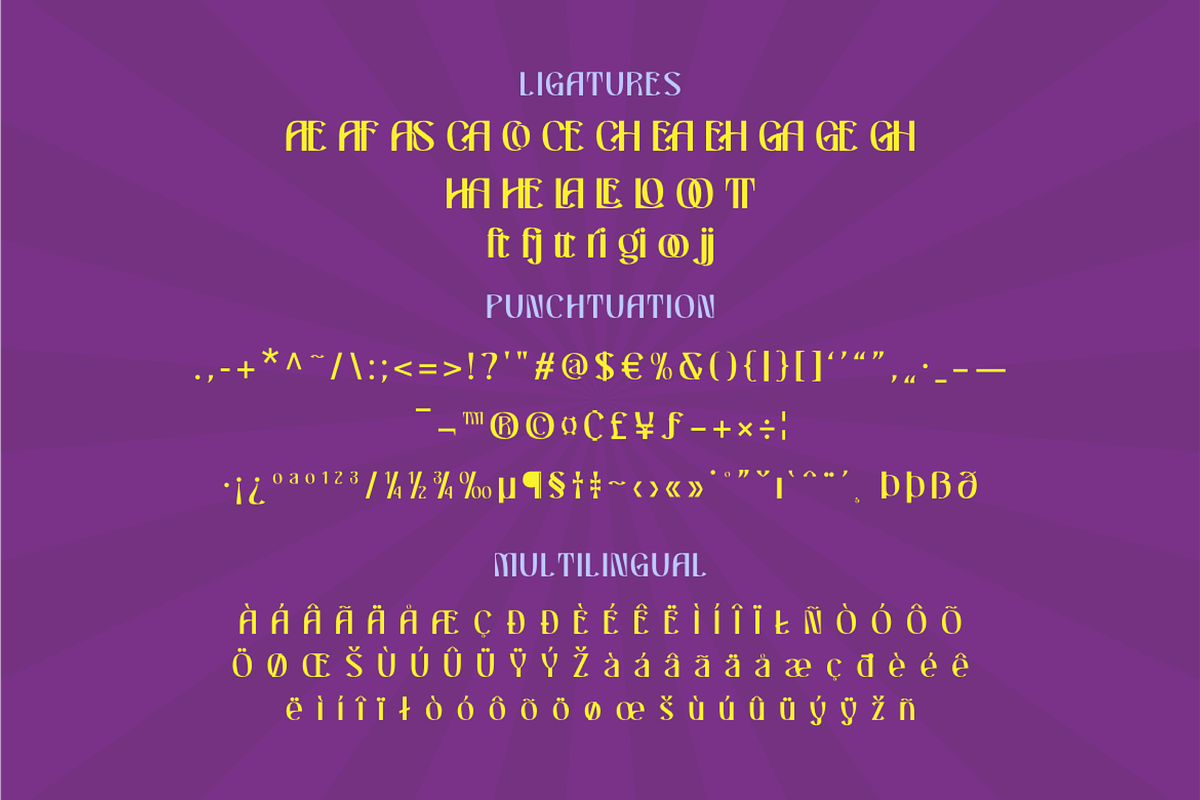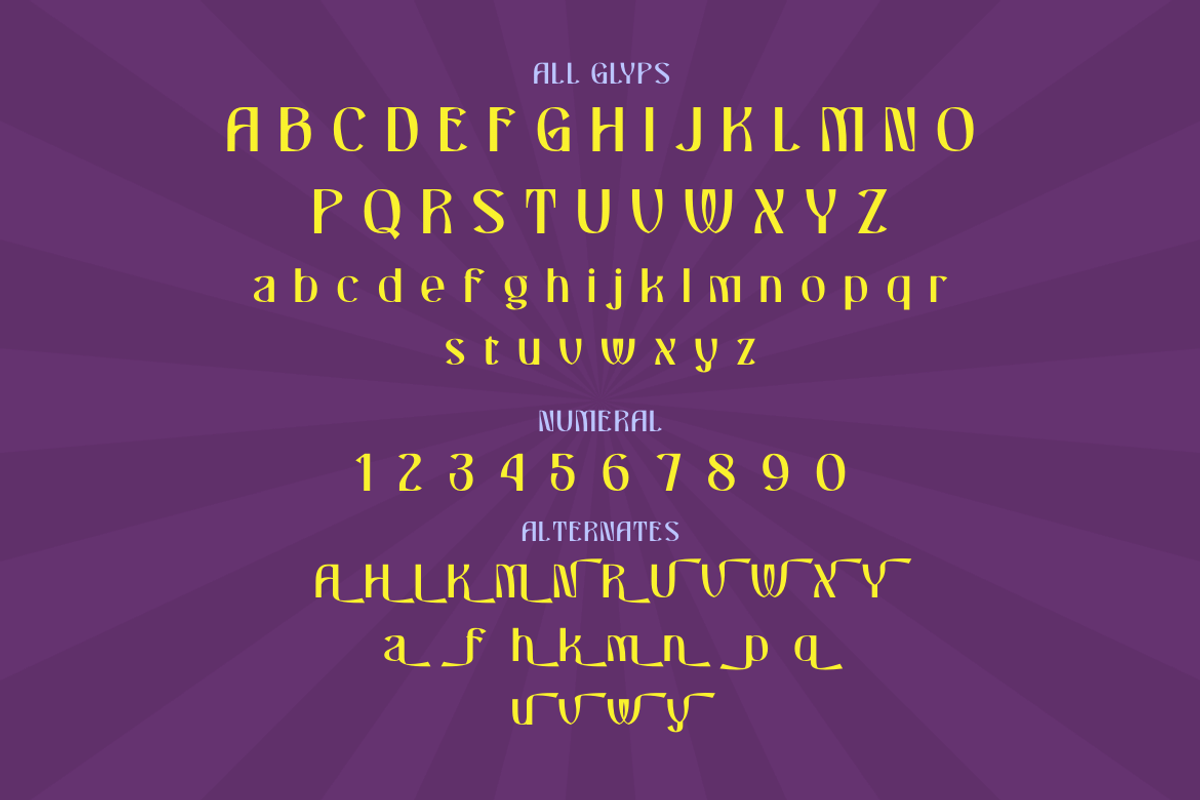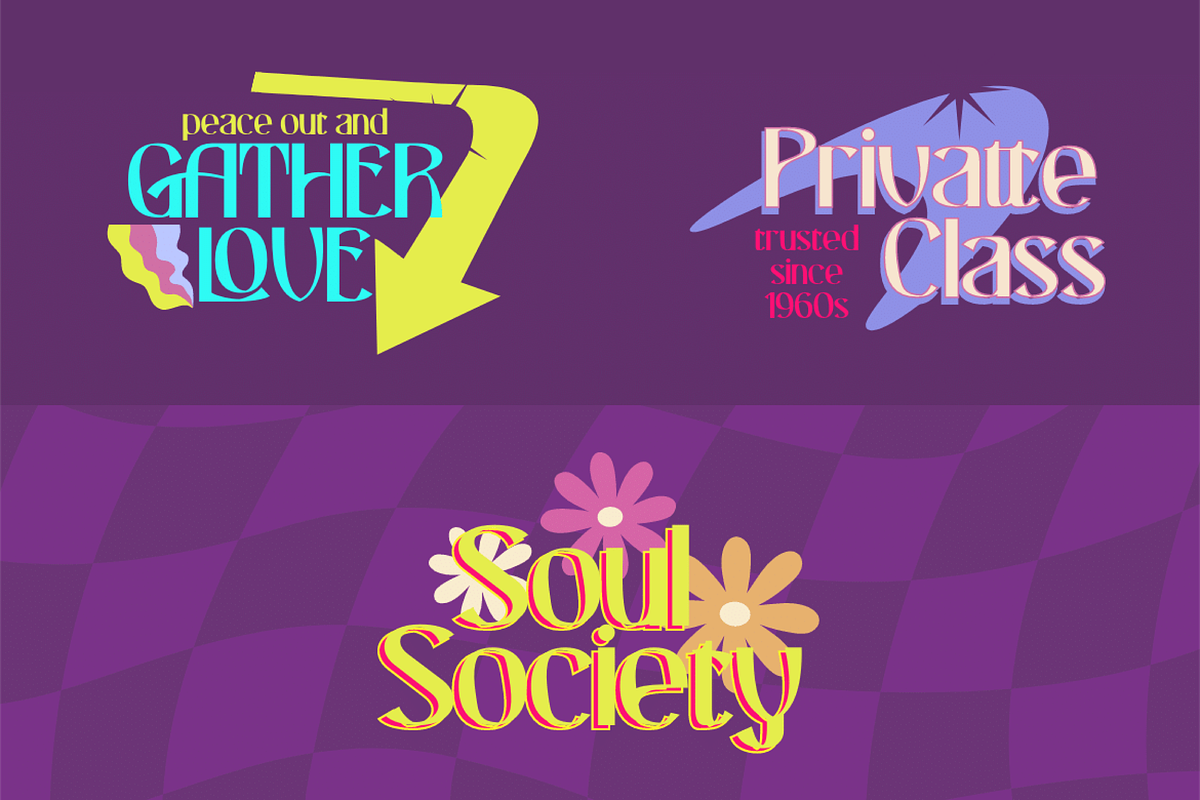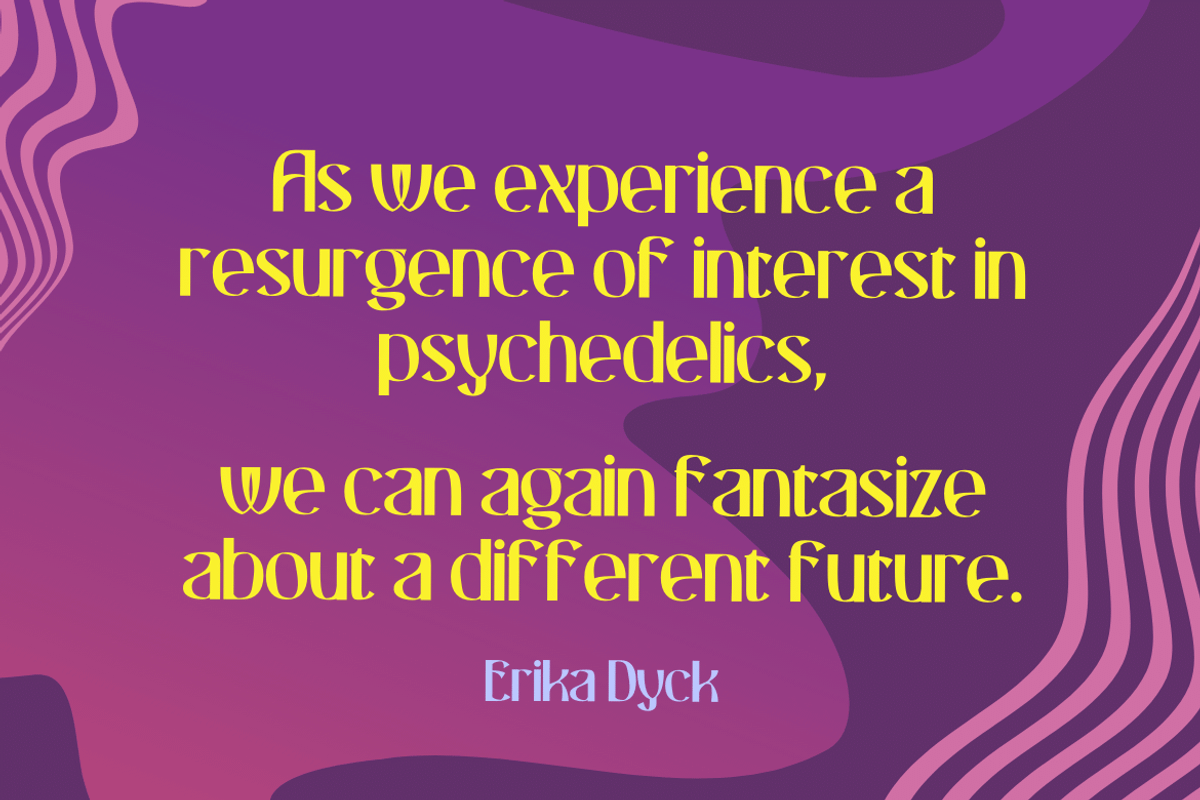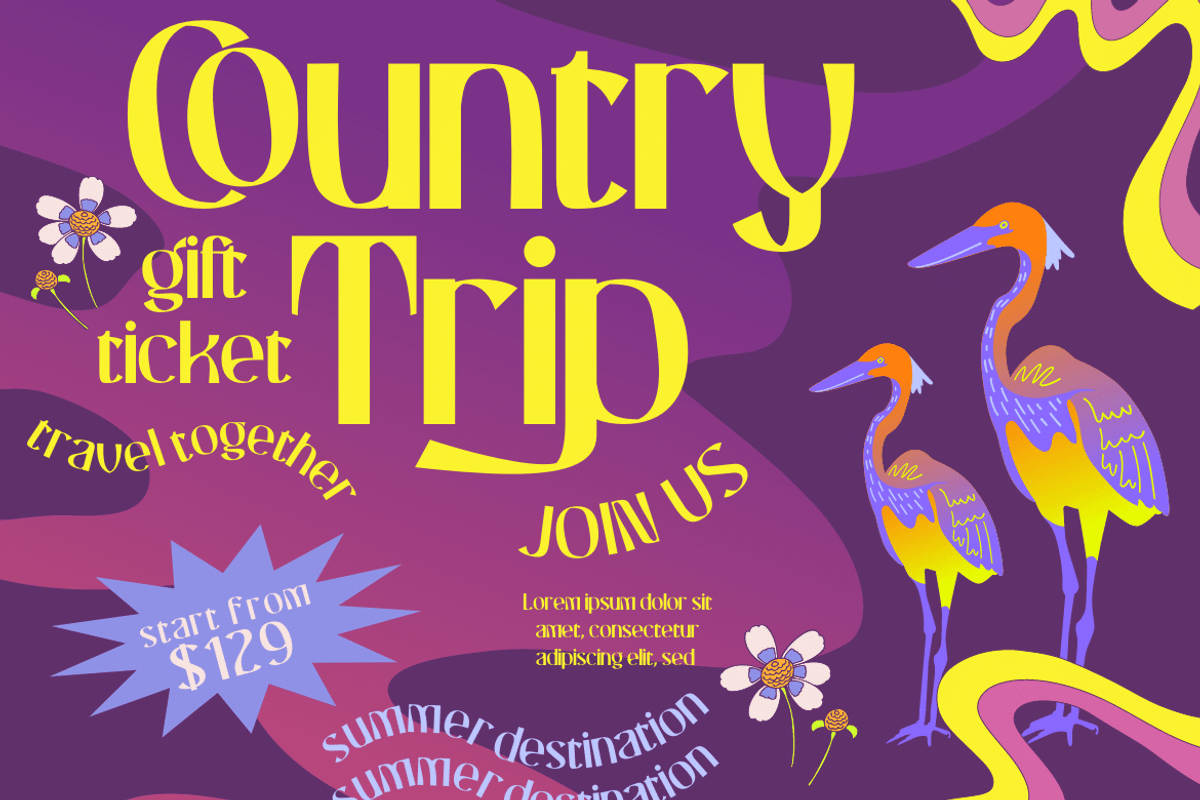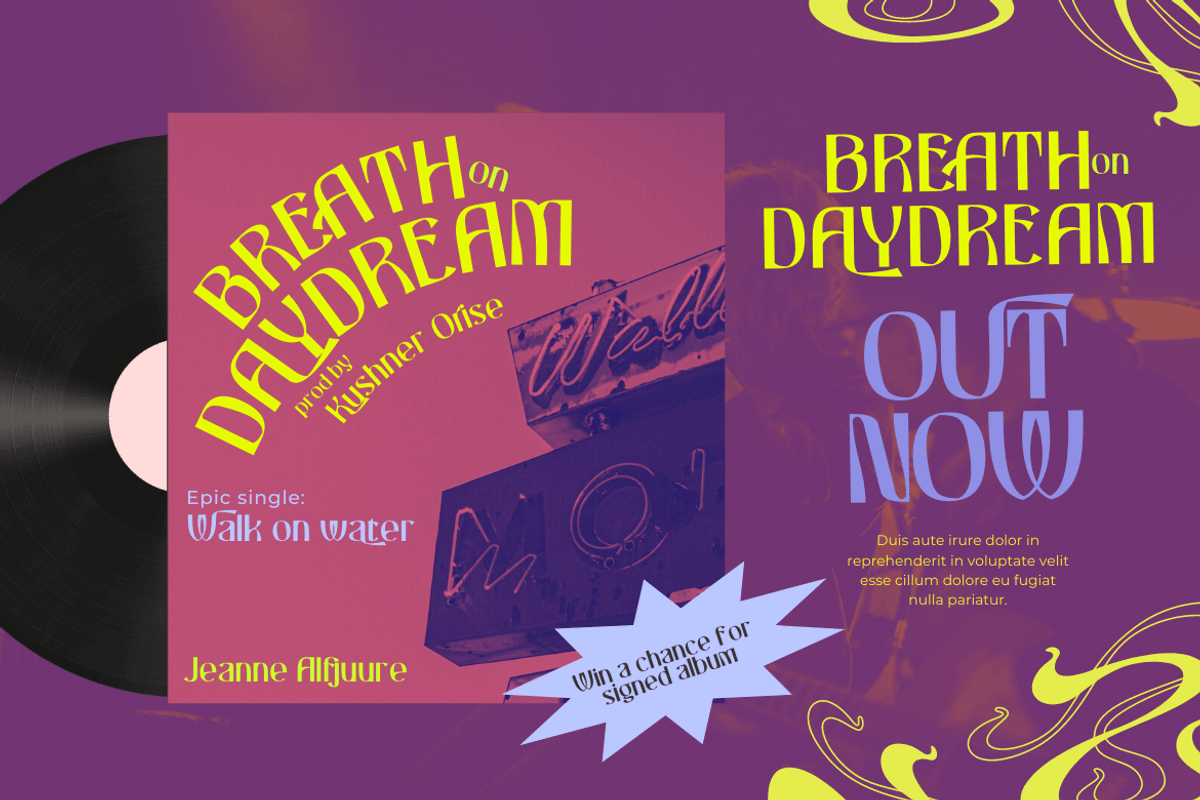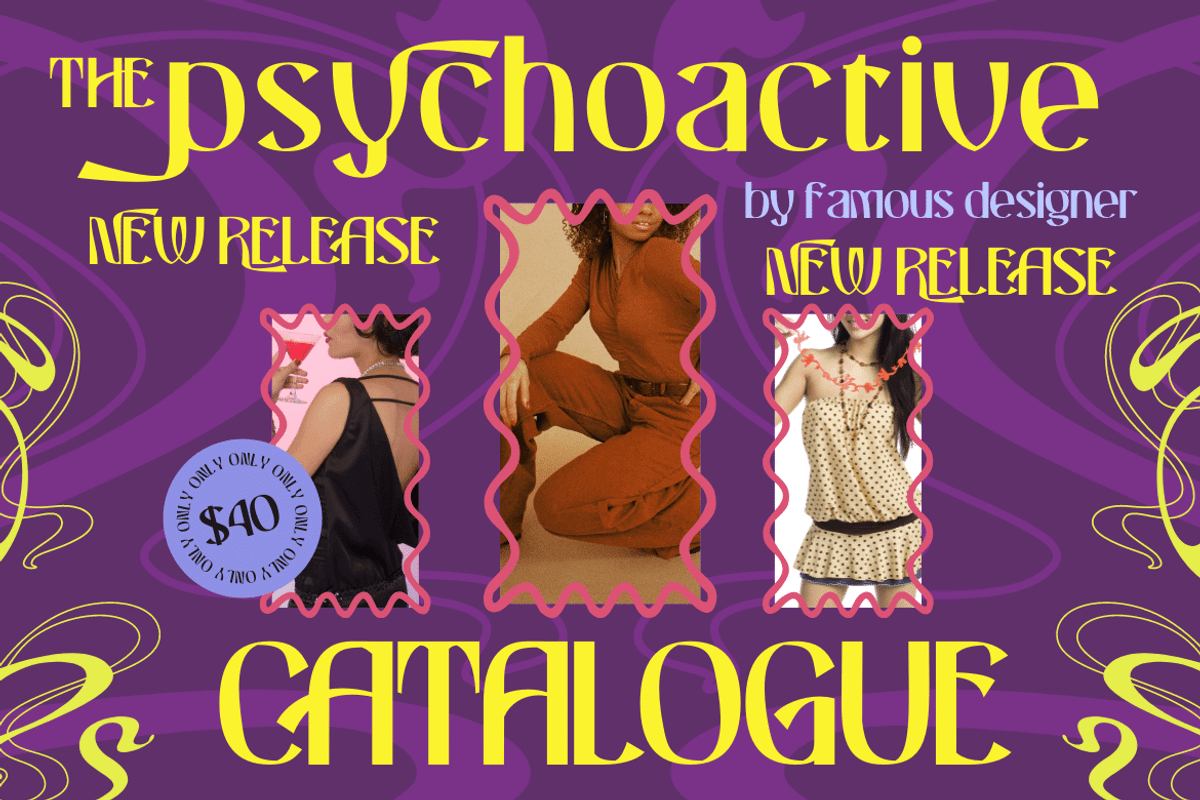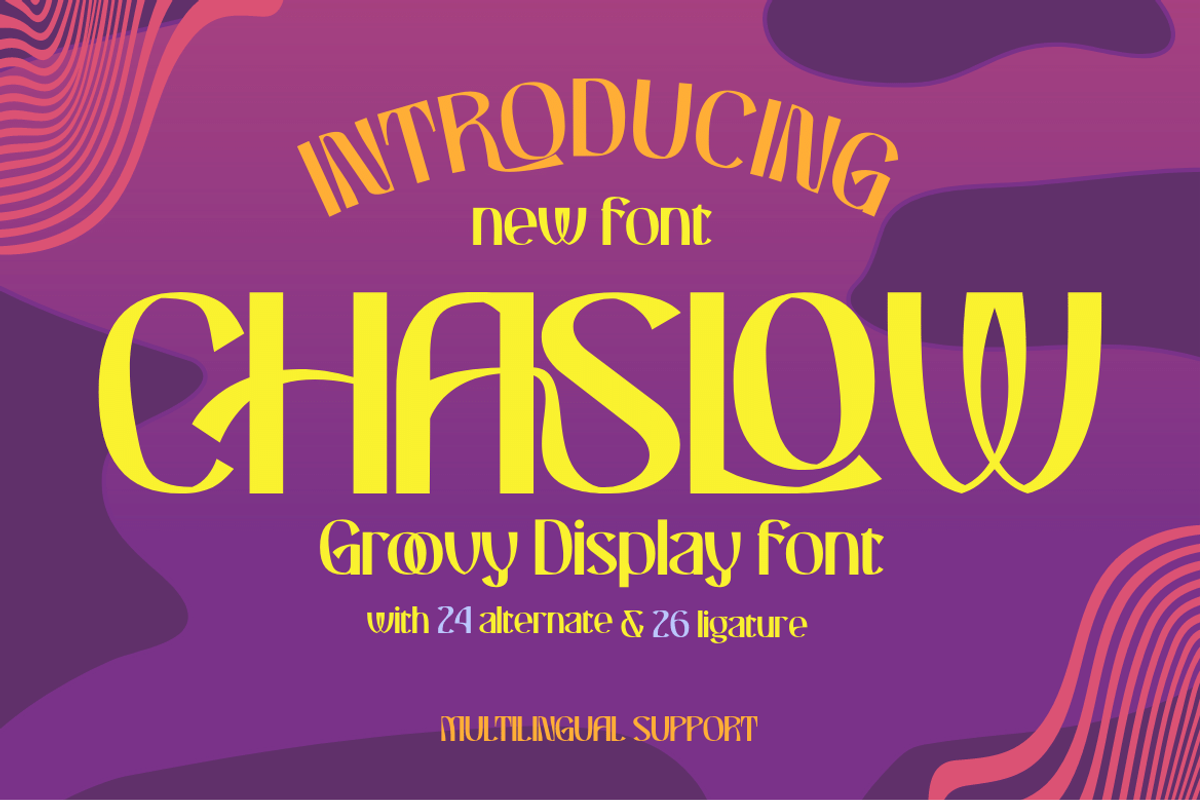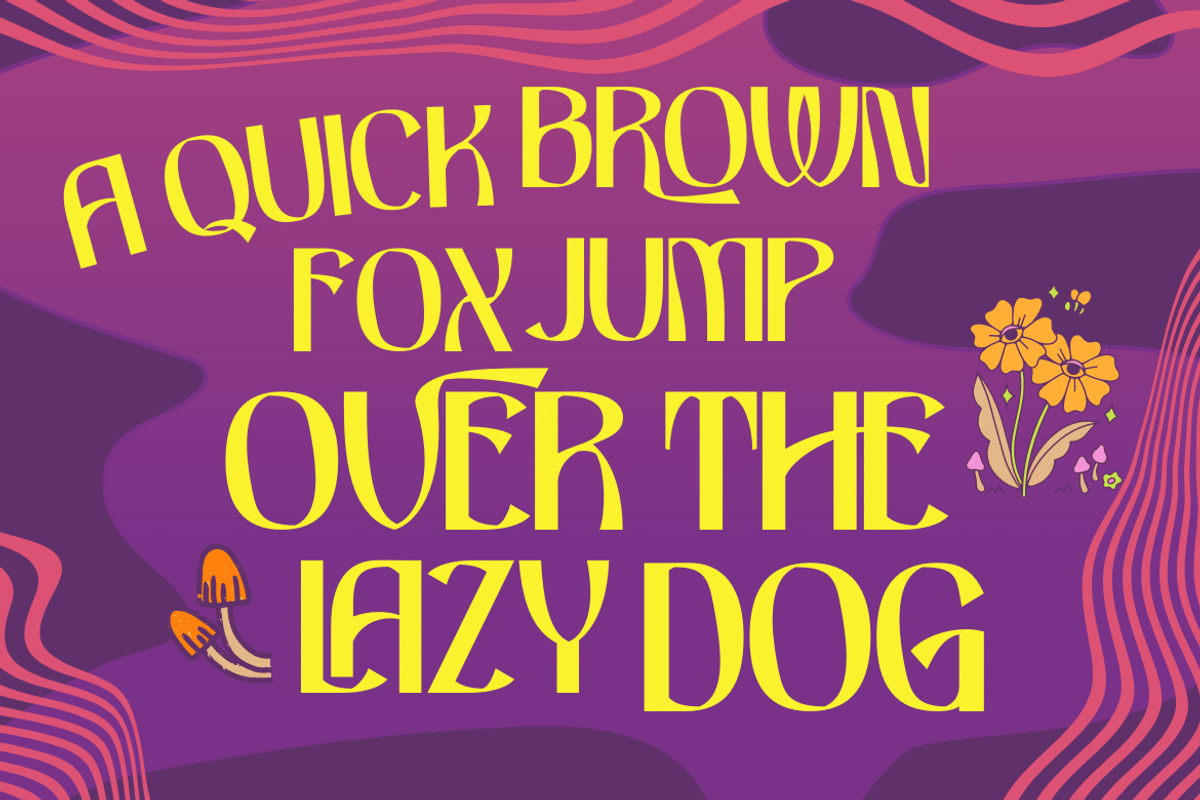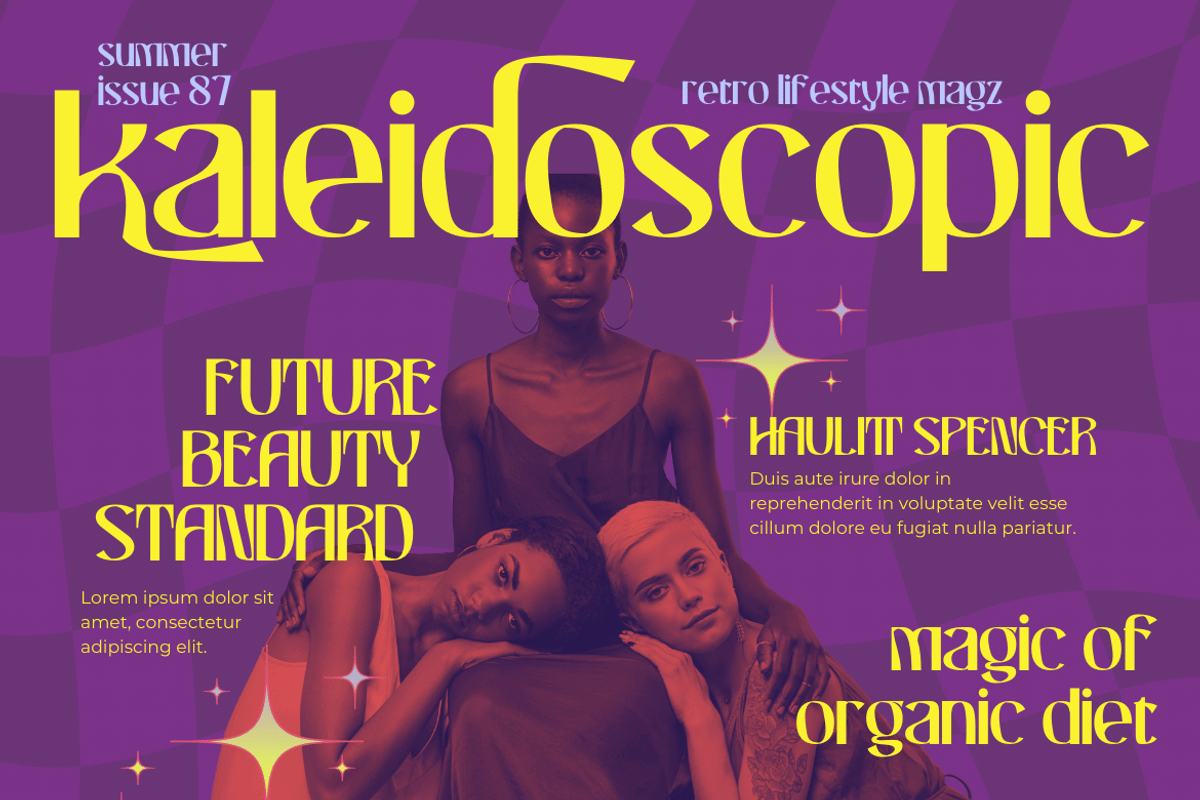
CHASLOW | Groovy Retro Font
You don’t have to question when to use a vintage font. Introducing our newest font called Chaslow. This font has a very strong and bold personality, making it perfect for any design that needs a unique touch. Thin lines are contrasted against thick ones, which makes them stand out from all other fonts. This font will give your work that extra zest! You can use it to create all kinds of designs, including logo designs, posters, flyers, and more!